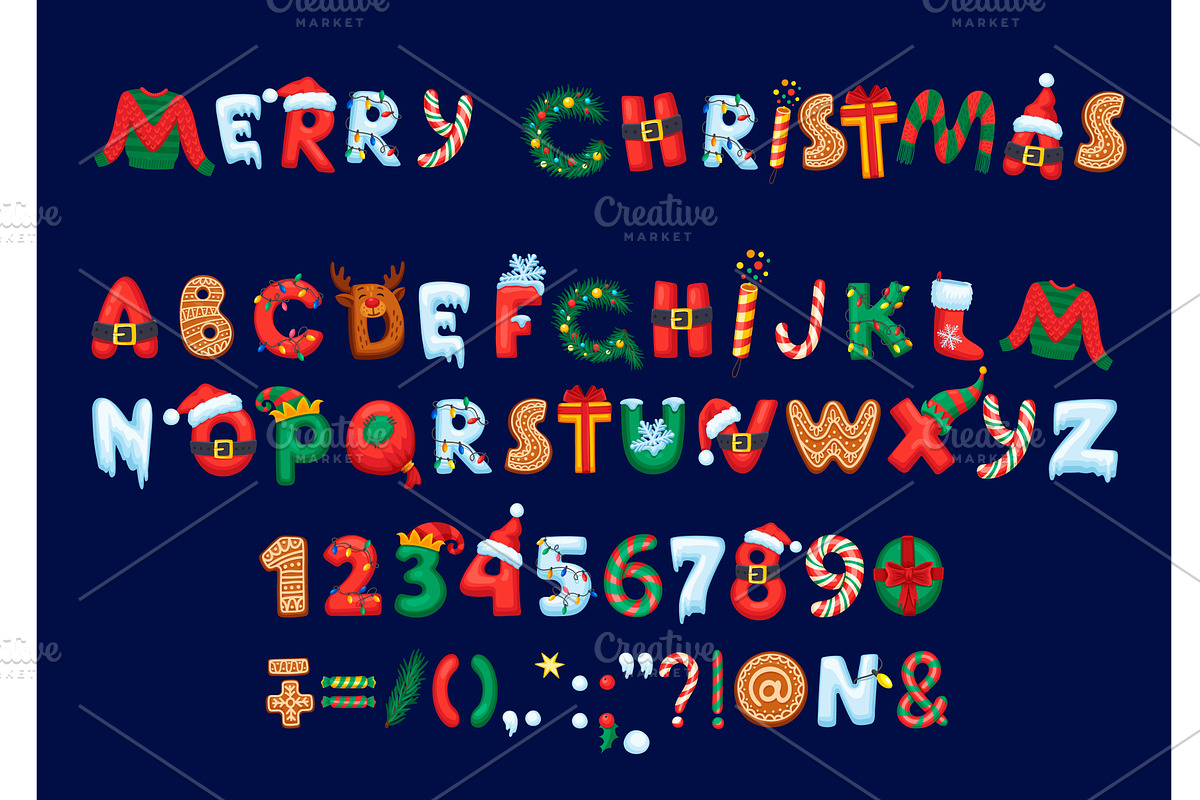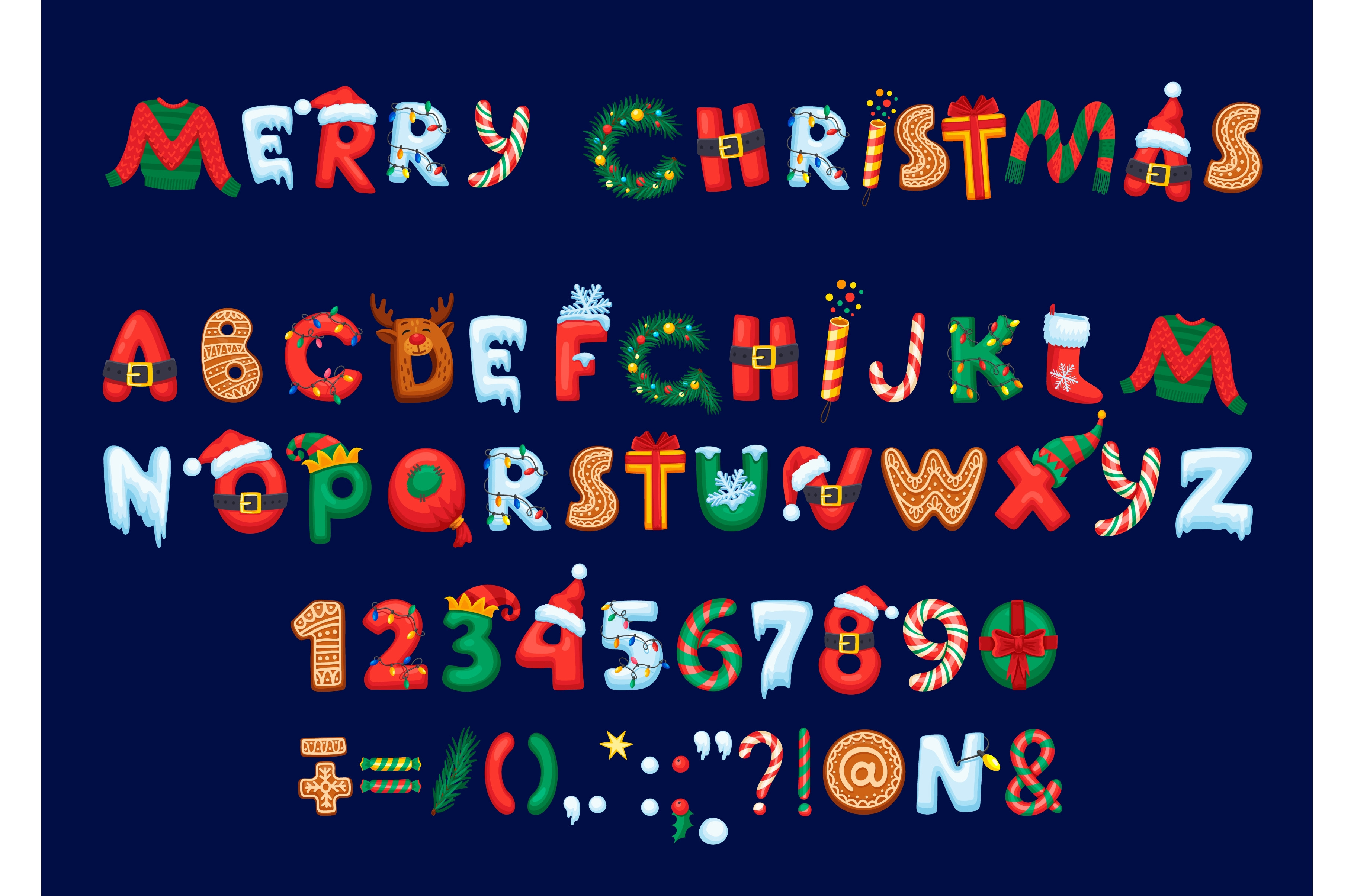
Christmas font or type, typeface
Christmas font or type, cartoon holiday typeface and alphabet. Vector xmas festive abc letters, numbers and signs with santa hat, snow, decorated pine tree, gingerbread cookies, garland and reindeer